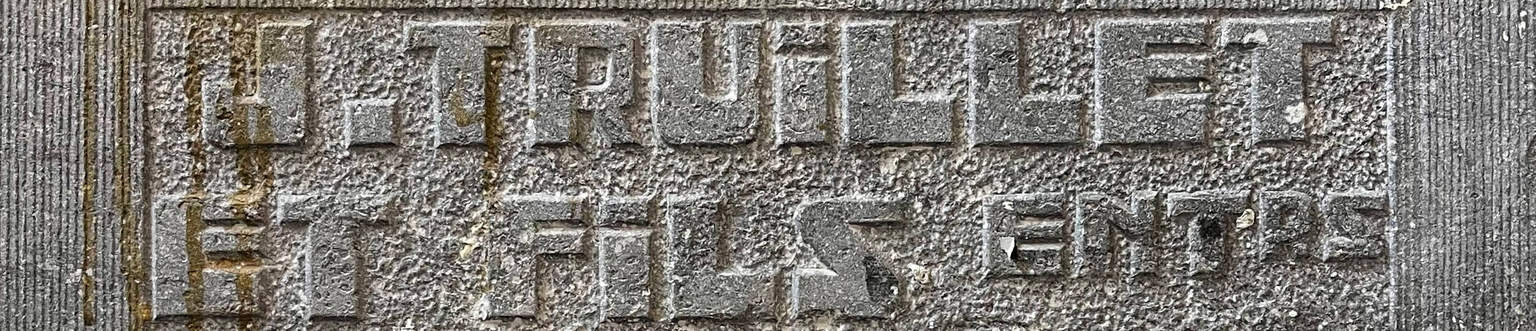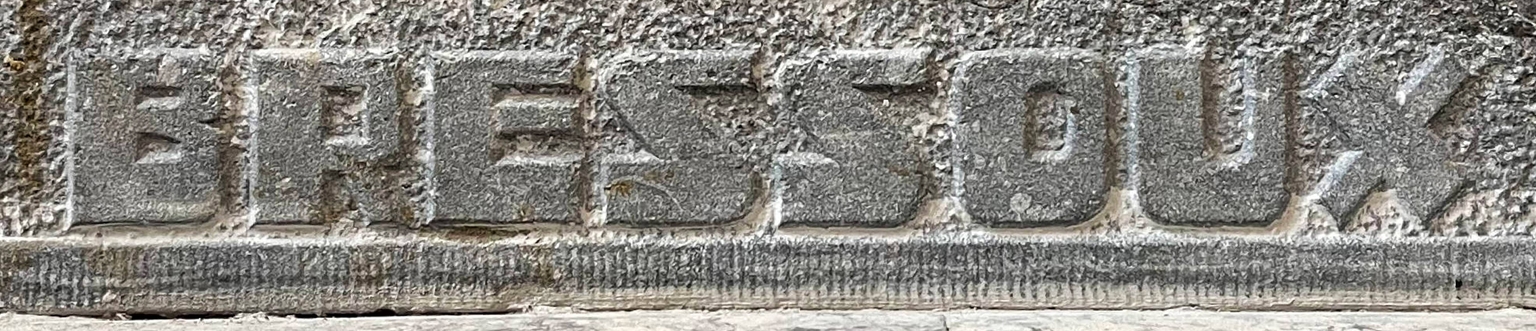
Truillet
Truillet is a modular, technical display typeface designed by Ramiro Espinoza and inspired by the lettering carved into a stone mausoleum in Hermalle-sous-Argenteau, Belgium. The inscription bears the name of the architectural firm 'Truillet et Fils', responsible for the mausoleum, and is composed of compact, squarish letterforms whose geometric construction and restrained detailing give the alphabet a distinctly appearance. Although carved in stone, the lettering conveys a precision more commonly associated with architectural drafting and engineering.
Espinoza analyzed the proportions, construction, and rhythm of the original lettering and translated these qualities into a contemporary digital typeface. As with all Brutal Types releases, he refined the geometry, improved consistency, and expanded the character set while preserving the modular logic and crisp character of the source.
With its compact proportions and technical appearance, Truillet is well suited for branding, editorial design, posters, signage, packaging, websites, exhibition graphics, and projects related to architecture, technology, engineering, and industrial design. Inspired by a little-known example of Belgian architectural lettering, the typeface transforms a carefully carved inscription into a versatile tool for contemporary graphic design.